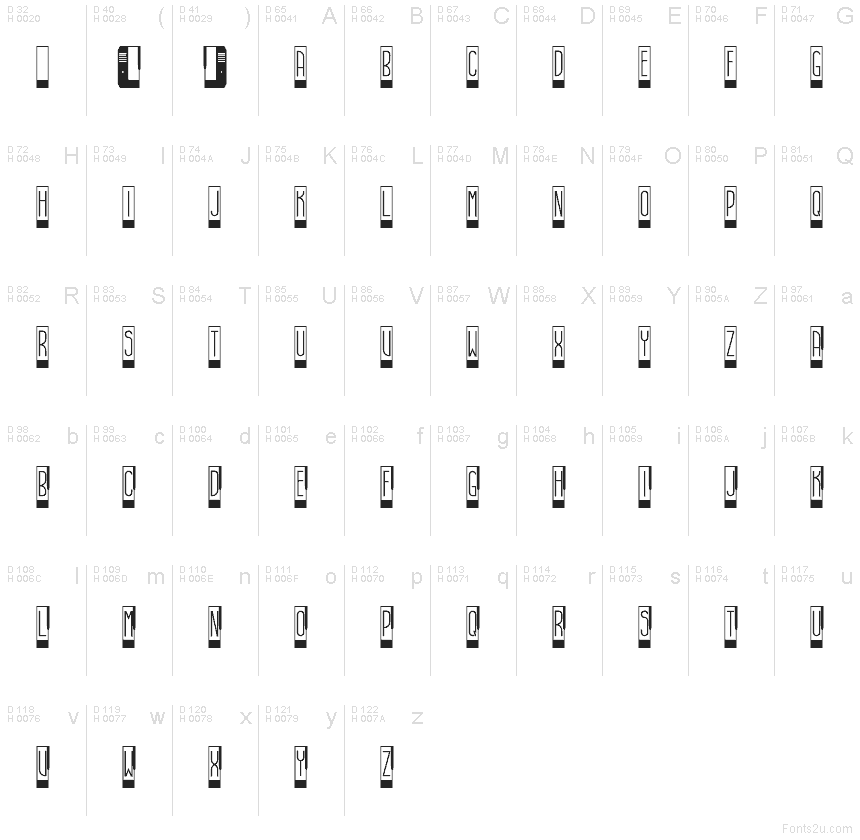
Synthesiser Extra Compressed Regular
Synthesiser Extra Compressed font by Vladimir Nikolic is a decorative display font with an ultra-condensed width. Its sleek design integrates modern, minimalist, and musical inspirations giving it a futuristic vibe. This free font creates an innovative and avant-garde impression suitable for various contemporary graphic designs.
Use Synthesiser Extra Compressed for music album covers, event posters, art exhibitions, logos, product packaging labels, T-shirt prints, and even website designs. Pick it from this library whenever you’re working on technology-focused or music-related applications that are waiting for inspired typography ideas.